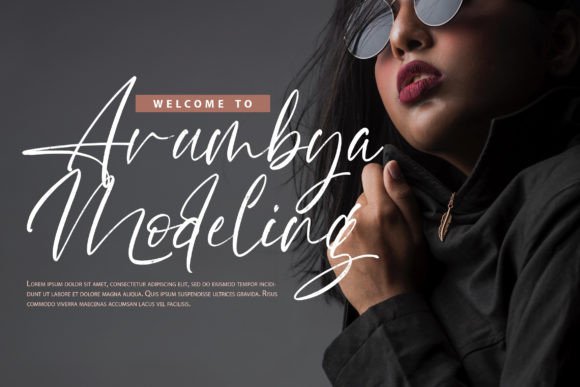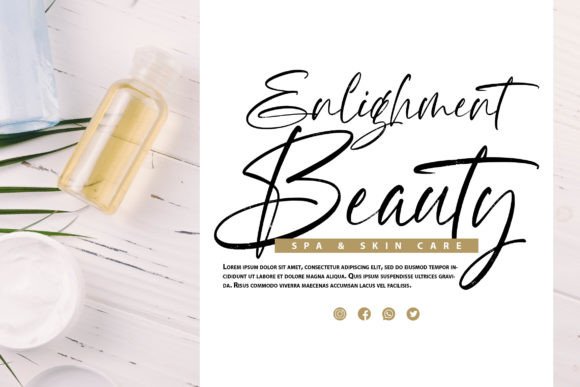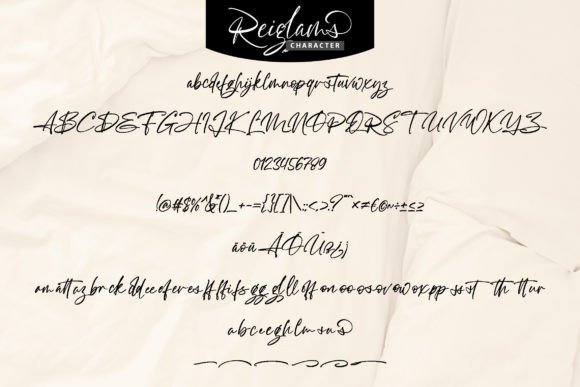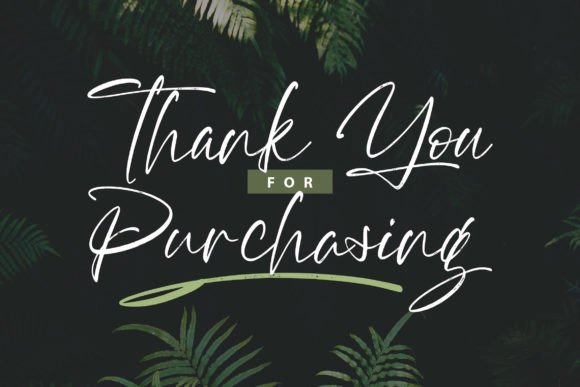
Reiglams Font
An Authentic and Versatile Script Font
Reiglams is a fresh script font designed to bring authenticity and style to any creative project. With its smooth strokes and natural handwritten feel, this font adds a personal touch that feels warm and genuine. Whether you’re designing invitations, branding, or digital content, Reiglams makes your work look polished and unique.
Its clean, modern lines blend classic script elegance with a contemporary twist, making it a great fit for both formal and casual designs.
Reiglams is a highly versatile font that adapts easily to many uses. It’s perfect for creating wedding invitations, RSVP cards, and thank you notes. The graceful script style makes every detail feel special and memorable.
For branding, Reiglams shines on logos, business cards, and packaging. Its handwritten look adds a personal feel to your brand, helping you stand out in a crowded market.
You can also use this font for greeting cards, posters, and inspirational quotes. Reiglams gives your words an elegant, artistic flair that feels authentic.
On social media, this font is a perfect choice for posts, banners, and stories. It helps your content feel approachable while maintaining a stylish look.
Even though Reiglams has a handwritten feel, it remains clear and legible in any size. The smooth connections between letters and balanced spacing make your text easy to read, whether you’re working on large headlines or smaller captions.
For a clean, modern design, pair Reiglams with a simple sans-serif font. Use Reiglams for titles and accents, and the sans-serif font for supporting text. This combination creates a professional layout with plenty of visual contrast.
To showcase Reiglams’ authentic style, use neutral backgrounds and soft color palettes. Light shades like ivory, blush, or pale gray allow the font’s details to shine without competing with the text.
When designing wedding materials or branding, consider adding subtle graphics like florals or geometric shapes that enhance the handwritten look. For social media, keep the design clean and let the font be the focal point.
Think about the mood you want to set. Reiglams is perfect for designs that should feel warm, personal, and timeless.
Reiglams is more than just another script font—it’s a creative tool that helps you express authenticity and style. Whether you’re working on professional branding or personal projects, Reiglams adds elegance and character to your work.
Adding Reiglams to your font library ensures you always have a reliable option for any design need. From invitations and business cards to social media graphics and quotes, this font adapts effortlessly to your ideas.